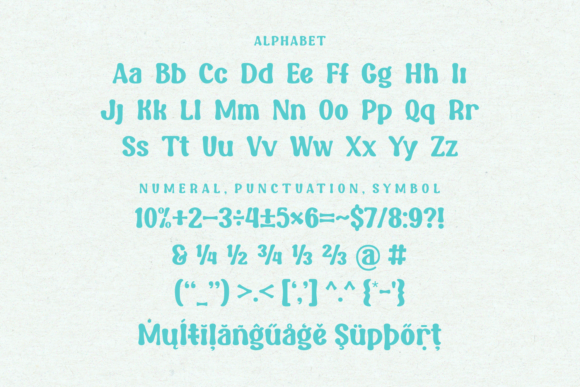
Introduction to Ningst Mode Font
Have you ever stumbled upon that perfect font while working on a creative project, and suddenly your entire design comes together? It’s that moment of serendipity that makes all the difference. For designers and crafty individuals, finding the right font can be a game-changer. And that’s exactly what we’re excited to introduce you to – the Ningst Mode Font.
This cool, friendly, and thick lettered display font is perfect for any occasion, whether you’re working on a digital design, presentation, or making greeting cards. Its high-quality design and free download make it an invaluable resource for designers and crafters alike. With a transparent background, you can easily overlay your Ningst Mode text onto any design, making it a versatile tool for your next creative project.
Ningst Mode Font
- Unique Design: The Ningst Mode Font features a distinctive, hand-drawn style with a high level of detail, making it a valuable design resource for creative projects.
- Transparent Background: Ningst Mode Font offers a transparent background, allowing for seamless integration with various design elements and backgrounds.
- Perfect for Creative Projects: Ningst Mode Font is ideal for designers working on creative projects that require a unique, high-quality font with a transparent background.
Honest Review: Ningst Mode Font
I recently had the opportunity to use the Ningst Mode Font in a creative project, and I must say it was a great addition to my design resource toolkit. ✨ The font’s sleek and modern design made it perfect for a tech-themed website, and the free download was a bonus!
One of the standout features of the Ningst Mode Font is its versatility. It comes with a range of styles and weights, making it easy to customize and adapt to different design needs. The transparent background option was also a huge plus, allowing me to easily overlay the font on top of images and other design elements.
Here are some of the key features that worked well for me:
- High-quality design that looks great on both desktop and mobile devices
- Easy to customize and adapt to different design needs
- Transparent background option for easy overlaying
⚠️ One limitation of the Ningst Mode Font is that it may not be suitable for all design projects. The font’s modern and techy vibe may not be the best fit for more traditional or vintage-themed designs. However, for projects that require a sleek and contemporary look, the Ningst Mode Font is definitely worth considering.
Overall, I’m very impressed with the Ningst Mode Font and would highly recommend it to designers looking for a high-quality, versatile font for their creative projects.
Ningst Mode Font
The Ningst Mode Font is a high-quality design resource perfect for creative projects that require a unique and stylish touch. With a transparent background, this font is ideal for adding a pop of color and texture to your designs.
The Ningst Mode Font is perfect for:
- Creating eye-catching social media graphics.
- Designing unique and stylish invitations and event materials.
- Adding a touch of personality to your branding and marketing materials.